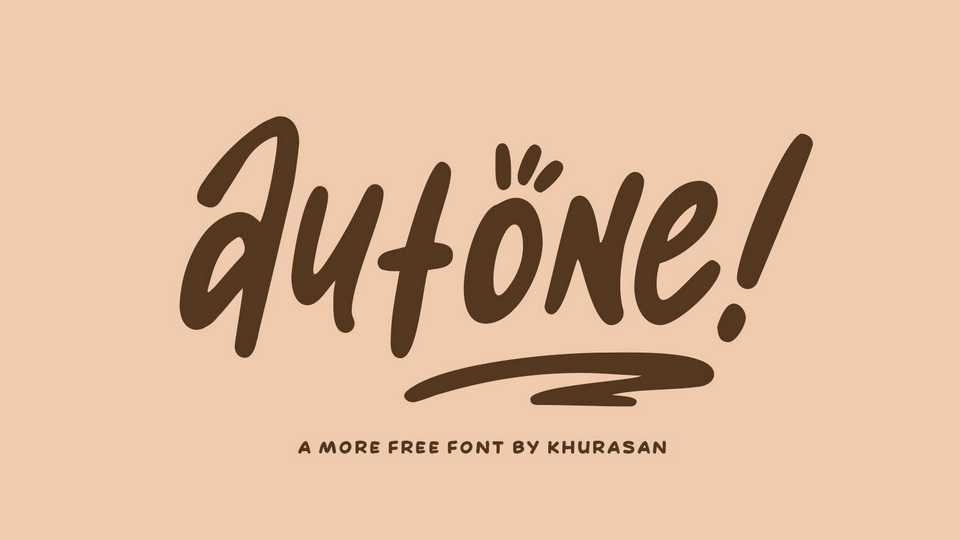
Download Autone font, an authentic, hand drawn brush typeface with an energetic vibe. With its organic and natural look, Autone font will impress any project with its simple yet powerful style.